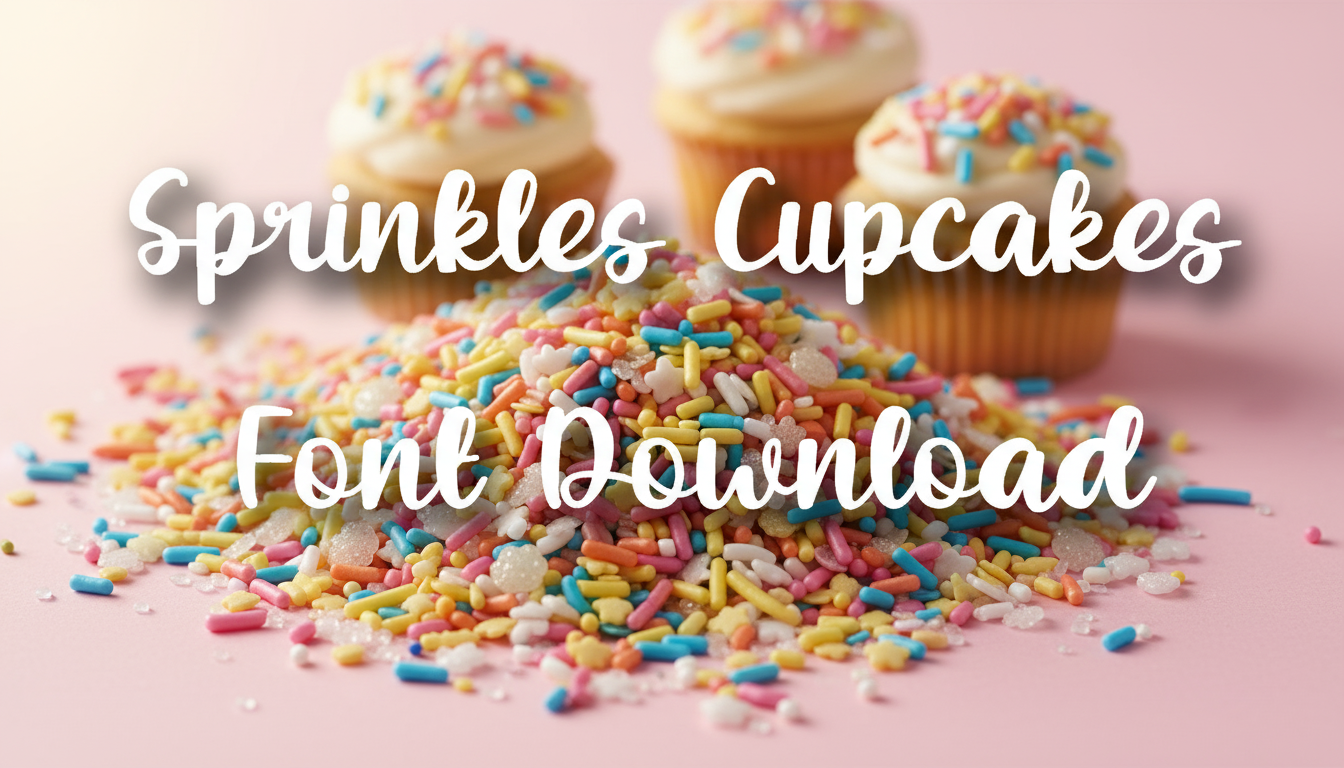
Sprinkles Cupcakes Font
Sprinkles Cupcakes
Sprinkles Cupcakes is a script font. Its flowing, pen-made letters give names and short phrases a personal, polished look. You can download it for free and test it with your own words in the preview above.
You get every letter from A to Z in both cases and all the numbers from 0 to 9, which means Sprinkles Cupcakes can handle full sentences, dates and prices. Everyday marks like &, !, ? and @ are there too. Thanks to its accented letters, it also works for Spanish, French, German, Portuguese and Italian, not just English.
Designers usually reach for fonts like Sprinkles Cupcakes when they're making wedding invitations, logos and signature-style headings. Script fonts read best in short bursts, so keep it to names, titles and one-line quotes. Skip all caps: script capitals are drawn to start a word, not to fill one.
Yes. Sprinkles Cupcakes includes the accented letters needed for Spanish, French, German, Portuguese and Italian, so it works for more than just English.